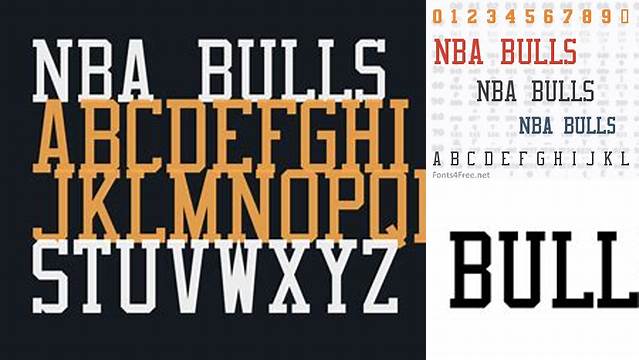
NBA Bulls Font: Free Downloads & Typography Guide
The Chicago Bulls are more than just a basketball team; they're a global icon. A significant part of their brand identity lies in their distinctive visual elements, and the NBA Bulls font is a crucial component. For designers, fans, and anyone looking to capture the essence of this legendary team, accessing the right font is essential. In this comprehensive guide, we'll explore everything you need to know about the NBA Bulls font, including its history, characteristics, and, most importantly, where to find it for free download. Whether you're working on a personal project or a professional design, understanding and utilizing this font correctly can add an authentic touch that resonates with audiences. Let's dive into the world of typography and discover how to bring the spirit of the Bulls to your creative endeavors. Understanding the nuances and applications of the NBA Bulls font is paramount for creating visually appealing and contextually relevant designs. From banners and posters to digital media and merchandise, the font plays a vital role in maintaining brand consistency and capturing the energy of the Chicago Bulls. This guide will equip you with the knowledge to confidently use the font in your projects, ensuring that your designs stand out and effectively communicate the message you intend. So, gear up and get ready to explore the exciting world of the NBA Bulls font and its impact on design and branding.
What is the NBA Bulls Font?
The NBA Bulls font, while not a single, officially licensed font, typically refers to a typeface that closely mimics the lettering style used in the Chicago Bulls' logos, jerseys, and other branding materials. This font usually features a bold, blocky, and slightly stylized design that conveys strength, power, and a sense of tradition. Often, it incorporates subtle serifs or unique letterform characteristics that make it instantly recognizable. Identifying the exact font can be tricky, as the Bulls have used variations over the years, and fan-made or inspired fonts often circulate online. However, the core essence remains consistent: a strong, impactful typeface that embodies the spirit of the team. Replicating this font accurately is key to capturing the authentic Bulls aesthetic in any design project. Using a font that closely resembles the NBA Bulls font can evoke a sense of nostalgia and connection for fans. It's not just about aesthetics; it's about tapping into the rich history and emotional resonance associated with the team. Designers often use this type of font to create visuals that resonate with the target audience, whether it's for social media content, merchandise, or event promotions. The font acts as a visual shortcut, instantly communicating the brand identity of the Chicago Bulls and creating a sense of familiarity and excitement. Therefore, understanding the key characteristics of the font and its various iterations is essential for any designer looking to incorporate it into their work.
Characteristics of the Font
When you're trying to nail that Chicago Bulls vibe, the font characteristics are super important, guys. First off, the NBA Bulls font is all about being bold. Think thick, strong lines that just scream power. It's not a dainty, delicate font – it's got some serious muscle. Next, look for a blocky design. The letters are usually pretty square or rectangular, giving them a solid, grounded feel. This blockiness adds to the overall sense of strength and stability. You'll often see slight stylization too. This might mean subtle serifs – those little extra strokes at the ends of the letters – or unique shapes that make the font stand out. These little details are what give the font its personality and make it instantly recognizable. And finally, remember that the NBA Bulls font has evolved over time. There have been different versions used in logos, jerseys, and other branding stuff. So, pay attention to the specific era or style you're trying to replicate to get it just right. Nailing these characteristics is key to capturing the authentic Bulls aesthetic in your designs. The use of a bold typeface in the NBA Bulls font reflects the team's aggressive and dominant playing style. The thick lines and strong letterforms convey a sense of confidence and determination, which are qualities associated with the Chicago Bulls' legacy. This visual representation of strength helps to reinforce the team's brand image and create a powerful impact on viewers. The blocky design of the NBA Bulls font contributes to its overall legibility and readability. The clear and well-defined letterforms ensure that the font is easily recognizable, even from a distance. This is particularly important for applications such as jerseys, banners, and signage, where visibility is crucial. The blockiness also adds a sense of stability and solidity to the font, further enhancing its visual appeal.
Where to Find Free Downloads
Tips for Using the NBA Bulls Font Effectively
So, you've got the NBA Bulls font all set up – awesome! But how do you make sure you're using it like a pro? Here are some tips to help you nail that Chicago Bulls aesthetic. First off, keep it consistent. If you're using the font in a design, stick to it throughout the whole thing. Don't mix it with a bunch of other fonts, or it'll look messy and unprofessional. Consistency is key to creating a cohesive and polished look. Next, think about contrast. The NBA Bulls font is pretty bold and attention-grabbing, so you'll want to pair it with a simpler, more understated font for body text or other supporting elements. This will help the NBA Bulls font stand out without overwhelming the rest of your design. Also, pay attention to spacing. The NBA Bulls font can sometimes look a little cramped, so you might want to increase the letter spacing or line height to give it some breathing room. This will make it easier to read and give it a more modern look. And finally, don't be afraid to use color! The Chicago Bulls are known for their red, black, and white color scheme, so incorporating these colors into your design can really help to reinforce the brand identity. Just make sure the colors you choose complement the font and don't clash with each other. By following these tips, you can use the NBA Bulls font effectively and create designs that are both visually appealing and true to the spirit of the Chicago Bulls. The effective use of typography can significantly enhance the impact of your designs and help you communicate your message more clearly. By paying attention to factors such as consistency, contrast, spacing, and color, you can create visually appealing and engaging designs that capture the attention of your audience. The NBA Bulls font, with its bold and distinctive letterforms, can be a powerful tool for creating designs that evoke the spirit of the Chicago Bulls and resonate with fans of the team. However, it's important to use the font judiciously and in a way that complements your overall design. By following the tips outlined above, you can ensure that you're using the NBA Bulls font effectively and creating designs that are both visually appealing and true to the brand. The careful selection and use of fonts is an essential part of the design process. By taking the time to choose the right fonts and use them effectively, you can create designs that are both visually appealing and communicate your message clearly and effectively. Remember that the font is just one element of your design, but it can have a significant impact on the overall look and feel. By paying attention to the details and following the tips outlined above, you can create designs that are both visually stunning and effective in communicating your message.
The NBA Bulls font is more than just a typeface; it's a symbol of basketball history and a powerful branding tool. Whether you're a designer working on a project or a fan looking to express your team spirit, understanding and utilizing this font effectively can make a significant impact. Remember the key characteristics: bold, blocky, and slightly stylized. Search for inspired fonts on free font websites, always check the license, and don't be afraid to experiment. Install the font correctly, and use it consistently in your designs, paying attention to contrast, spacing, and color. By following these guidelines, you can capture the essence of the Chicago Bulls and create visuals that resonate with fans and audiences alike. So go ahead, download that font, and start creating! The NBA Bulls font is a valuable asset for any designer or fan looking to create visuals that embody the spirit of the Chicago Bulls. By understanding the font's characteristics, knowing where to find it for free download, and following the tips for using it effectively, you can create designs that are both visually appealing and true to the brand. Remember that the font is just one element of your design, but it can have a significant impact on the overall look and feel. By paying attention to the details and using the font judiciously, you can create designs that capture the essence of the Chicago Bulls and resonate with fans and audiences alike. The world of typography is vast and ever-changing, but the NBA Bulls font remains a timeless classic. Its bold and distinctive letterforms evoke a sense of strength, power, and tradition, making it a perfect choice for designs that need to convey these qualities. Whether you're creating a logo, designing a website, or simply writing a document, the NBA Bulls font can help you communicate your message clearly and effectively.